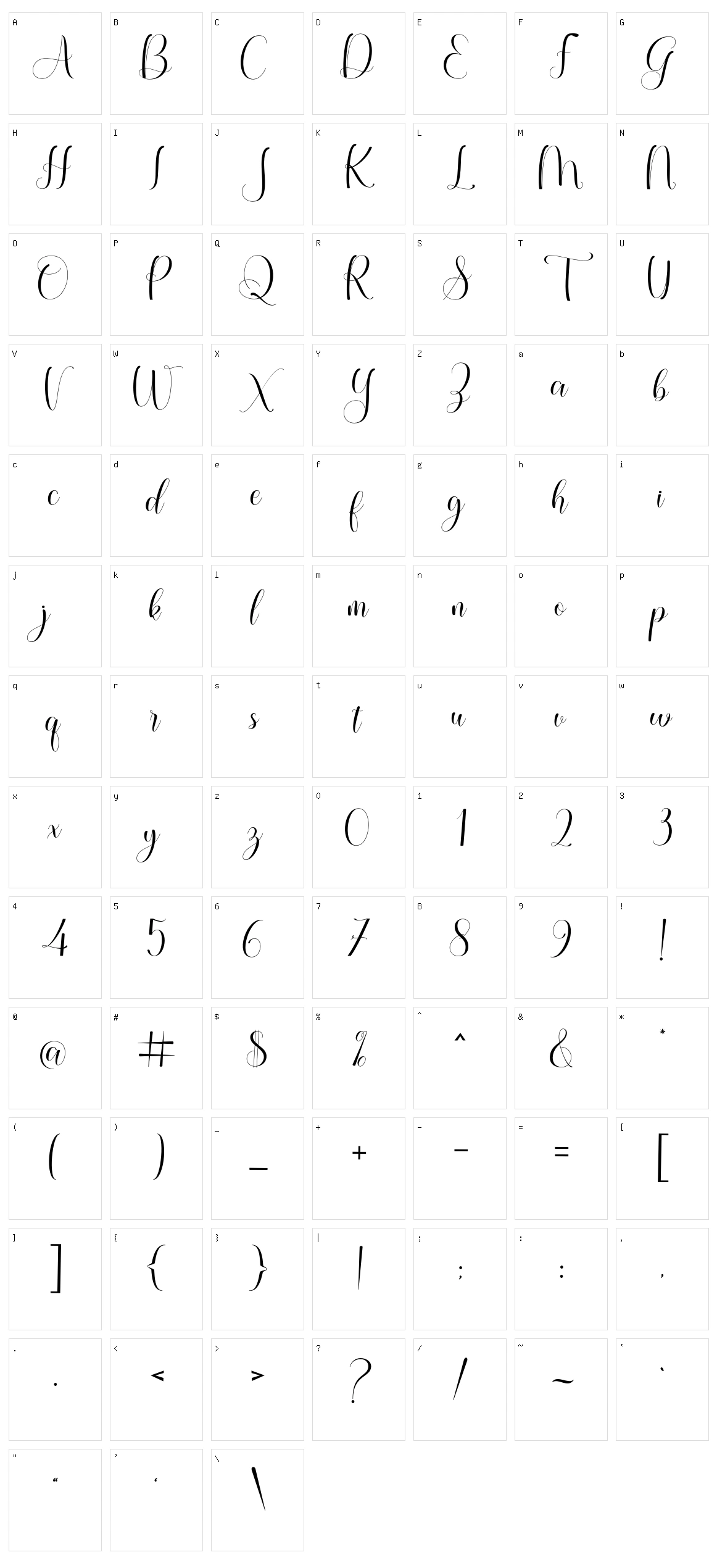
The free font Qelly Violentia is carefully designed by Muhammad Fajar, showcasing a thoughtful balance of creativity and usability and falls under the Script font style. When you download the ZIP file, it contains only 54.18 KB of font files, making it lightweight and quick to download. Please review the license details below to understand permitted usage and distribution rights. If license information is not available, we recommend using this font for personal projects only or contacting the author directly for commercial usage permissions.